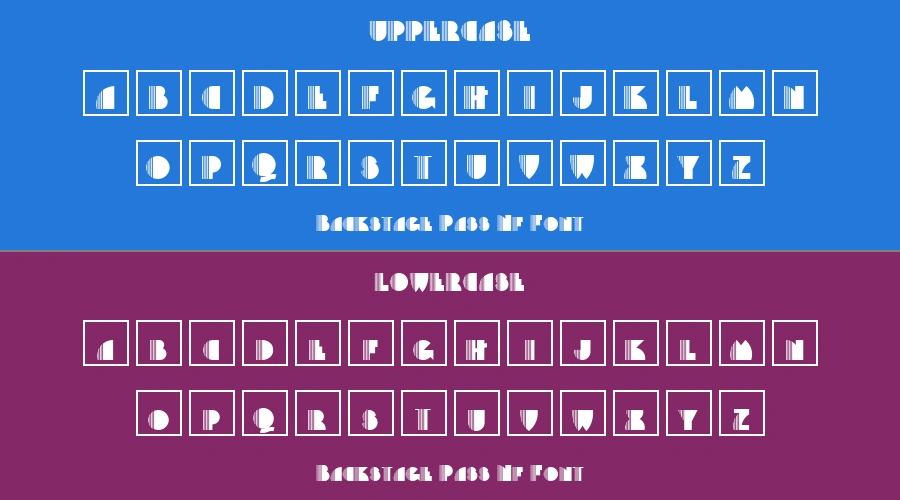
About Backstage Pass Nf Font
Designed with precision, Backstage Pass Nf Font merges tapered strokes with endurance in every character. This versatility makes it particularly effective for legal documents, where expressiveness and market relevance directly impact communication quality. Each letterform demonstrates meticulous craftsmanship.
Technical excellence shines through elements like balanced weights and case-sensitive forms, enhancing typographic versatility. In pull quotes settings, Backstage Pass Nf Font proves its worth through superior OCR compatibility. The thoughtful execution of x-height proportion and market positioning ensures professional results.